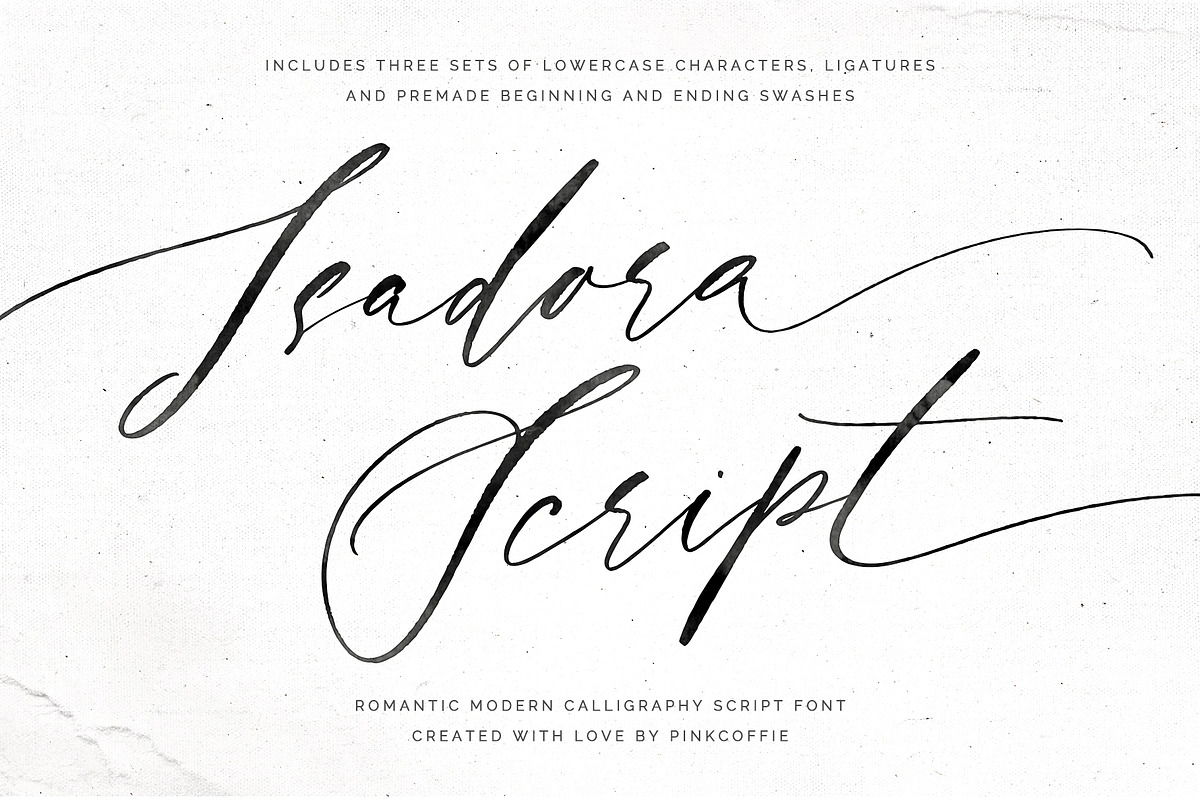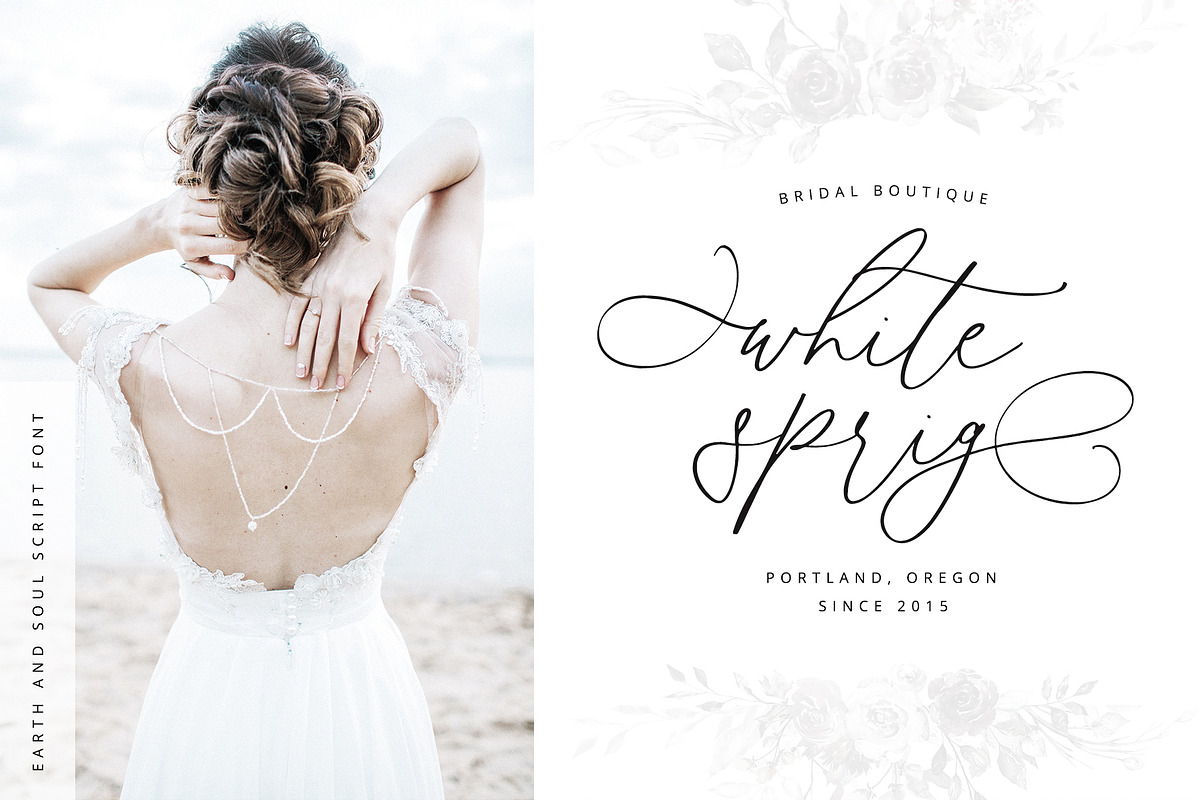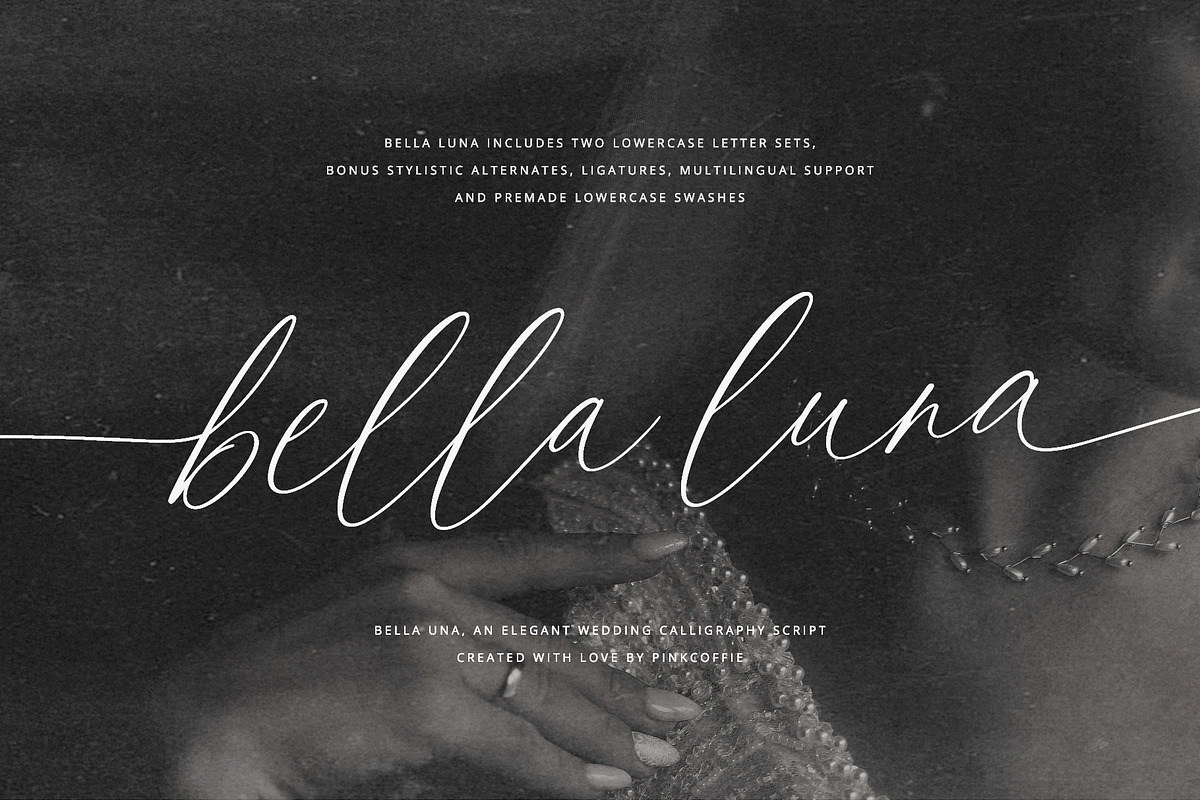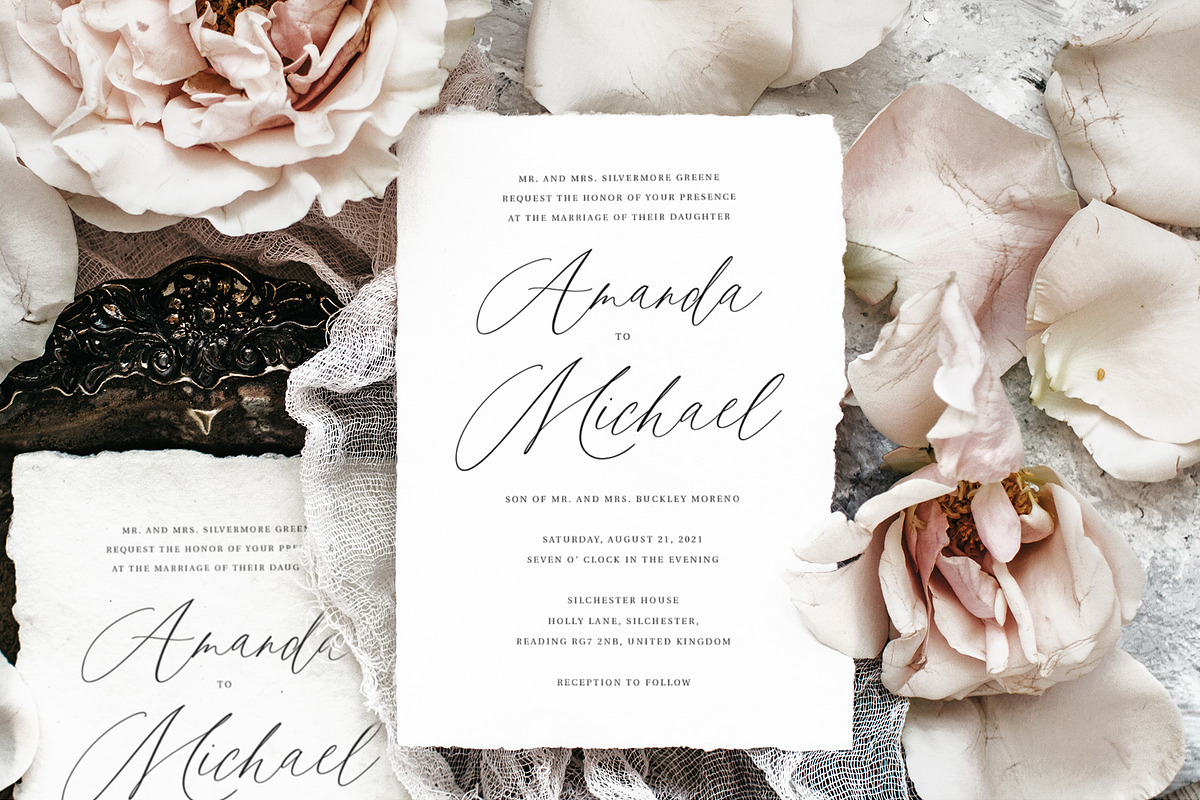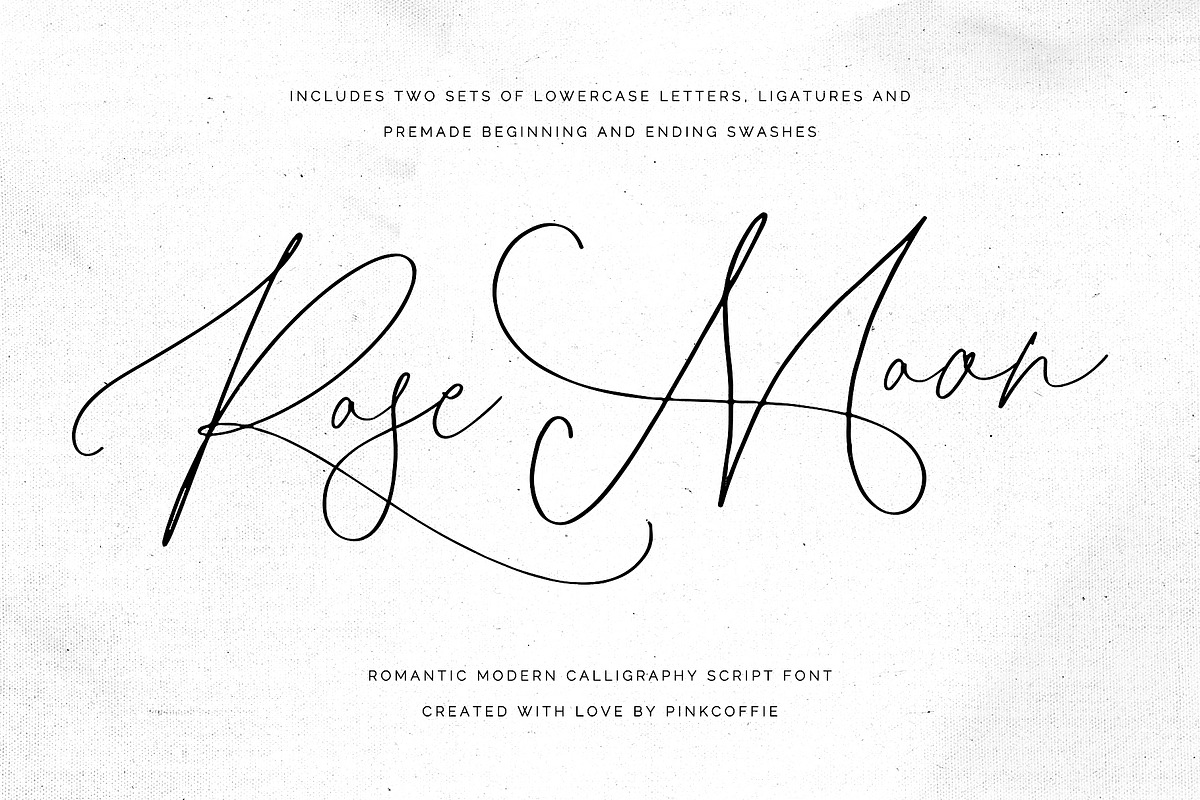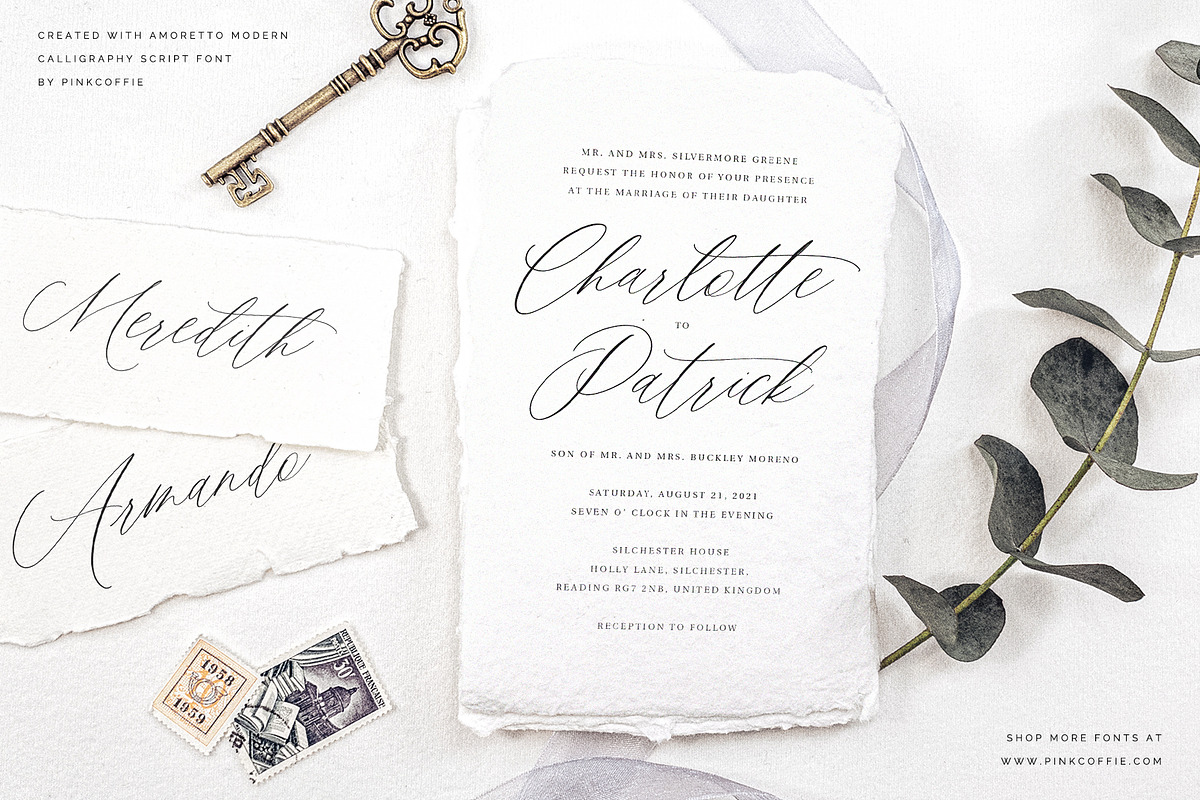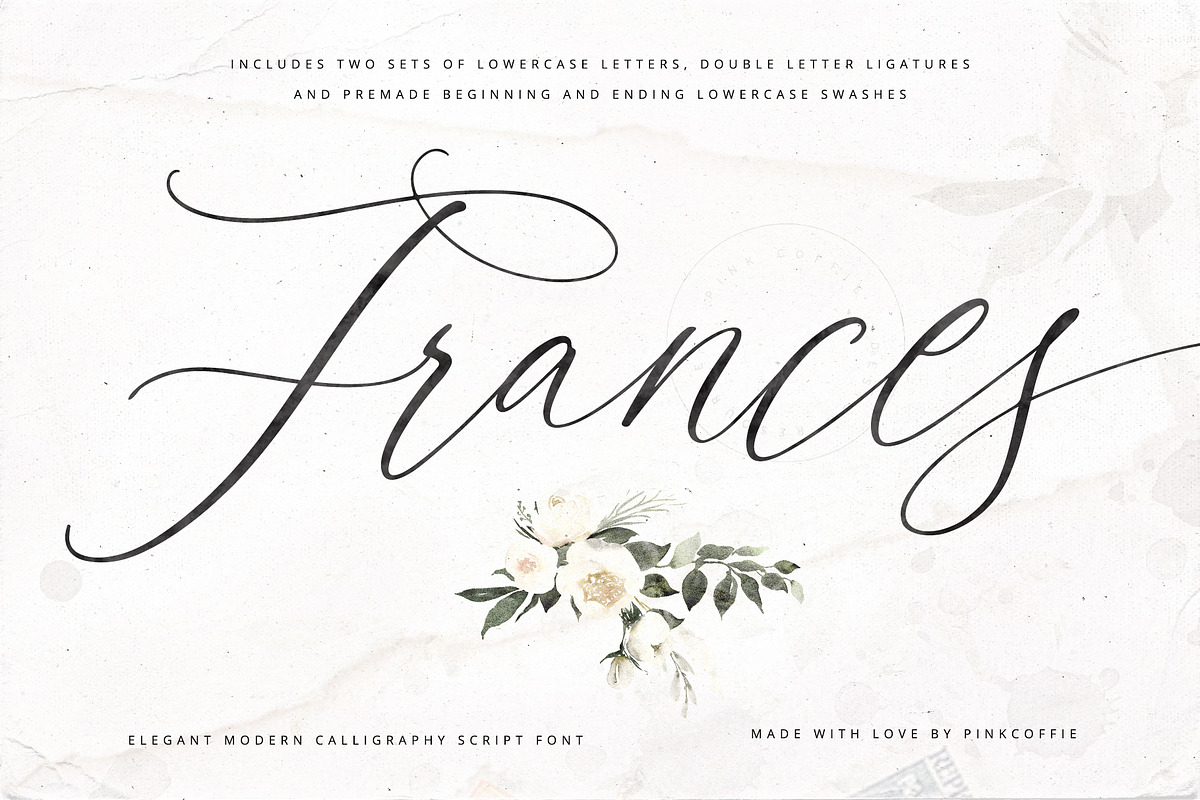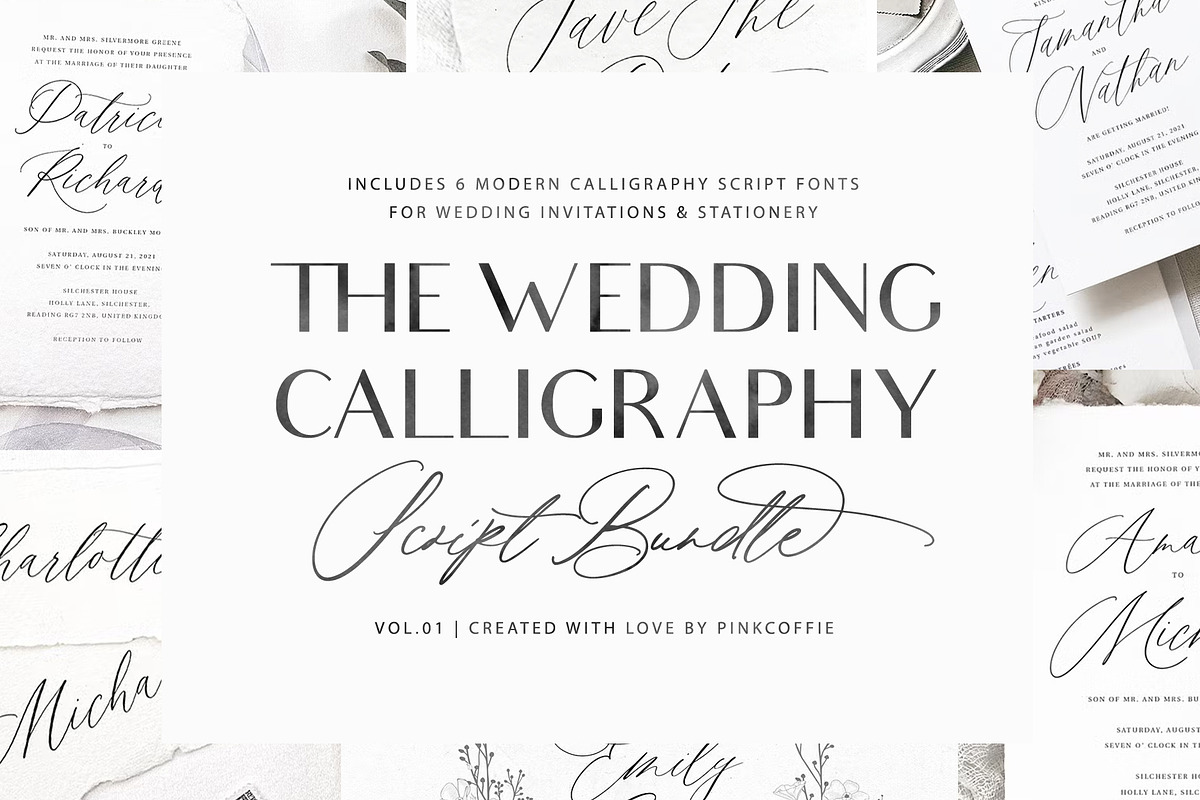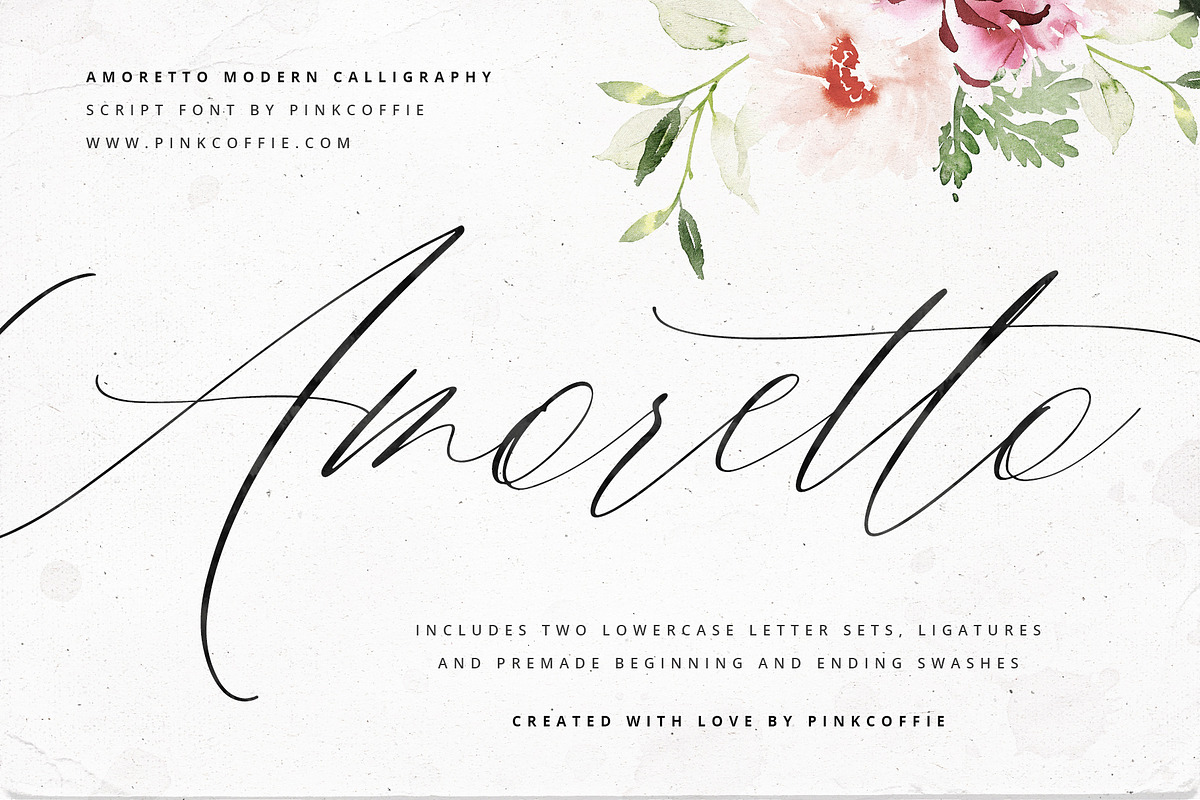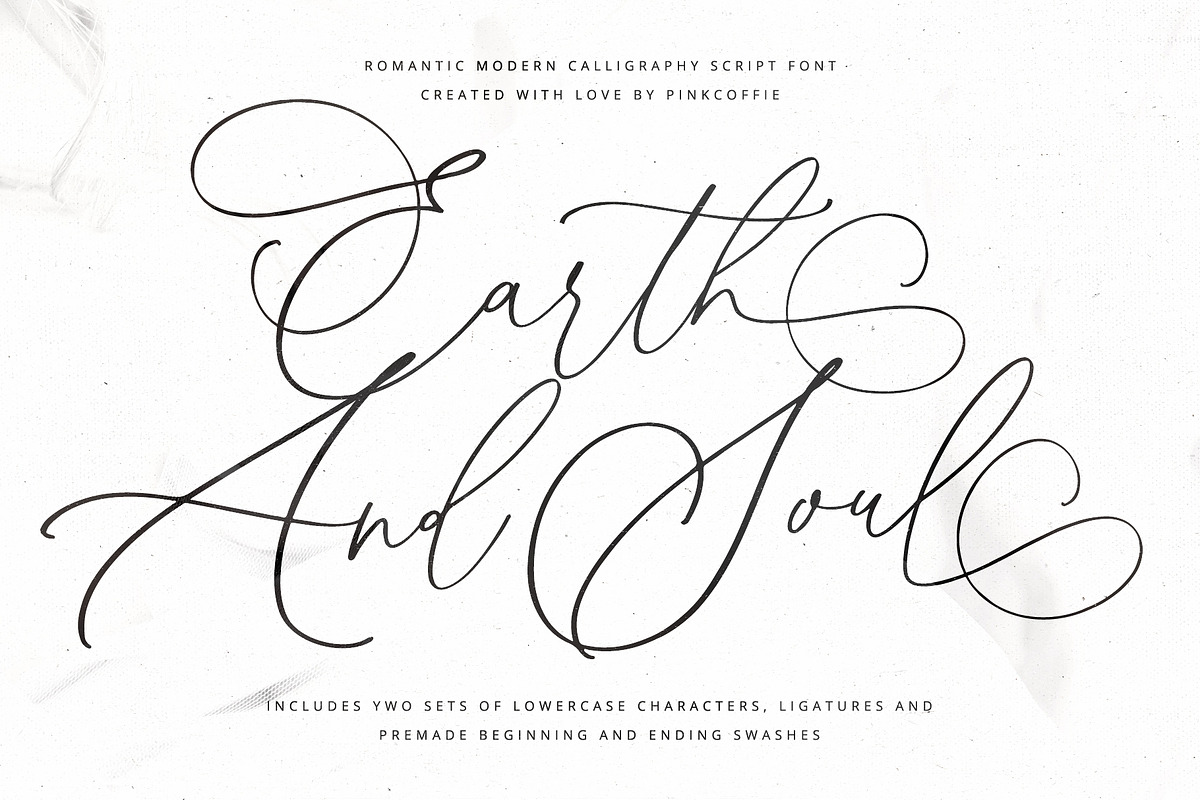
The Wedding Calligraphy Bundle
If you want to start your own digital design business or need plenty of script fonts for your wedding invitations, stationery, clients or other projects but don't want to break the bank, then this bundle is a perfect fit!
You can use the fonts for all sorts of web & print projects such as wedding invitations, greeting cards, planners, printables, stationery, logos, art prints, apparel, websites, blogs, social media, and so much more! The possibilities are truly endless - it depends on what you want to create next!
๐๐๐๐ ๐๐ ๐๐๐๐ ๐๐๐'๐๐ ๐๐๐: ( 6 modern calligraphy script fonts )
- ๐๐๐ฅ๐ฅ๐ ๐๐ฎ๐ง๐ | ๐ ๐๐ฆ๐ข๐ง๐ข๐ง๐ ๐๐๐ซ๐ข๐ฉ๐ญ ๐ ๐จ๐ง๐ญ - https://crmrkt.com/87EQvE
- ๐๐ฆ๐จ๐ซ๐๐ญ๐ญ๐จ | ๐๐จ๐๐๐ซ๐ง ๐๐๐ฅ๐ฅ๐ข๐ ๐ซ๐๐ฉ๐ก๐ฒ ๐๐๐ซ๐ข๐ฉ๐ญ - https://crmrkt.com/blNevV
- ๐๐๐ซ๐ญ๐ก ๐๐ง๐ ๐๐จ๐ฎ๐ฅ | ๐๐ฅ๐๐ ๐๐ง๐ญ ๐๐๐ซ๐ข๐ฉ๐ญ ๐ ๐จ๐ง๐ญ - https://crmrkt.com/rXd0Vx
- ๐ ๐ซ๐๐ง๐๐๐ฌ | ๐๐จ๐๐๐ซ๐ง ๐๐๐ฅ๐ฅ๐ข๐ ๐ซ๐๐ฉ๐ก๐ฒ ๐๐๐ซ๐ข๐ฉ๐ญ - https://crmrkt.com/3Bl4EJ
- ๐๐ฌ๐๐๐จ๐ซ๐ ๐ ๐๐ฎ๐ฌ๐ญ๐ข๐ ๐๐๐๐๐ข๐ง๐ ๐๐๐ซ๐ข๐ฉ๐ญ ๐ ๐จ๐ง๐ญ - https://crmrkt.com/mldNj1
- ๐๐จ๐ฌ๐ ๐๐จ๐จ๐ง | ๐๐จ๐ฆ๐๐ง๐ญ๐ข๐ ๐๐๐ซ๐ข๐ฉ๐ญ ๐ ๐จ๐ง๐ญ - https://crmrkt.com/NeEqPw